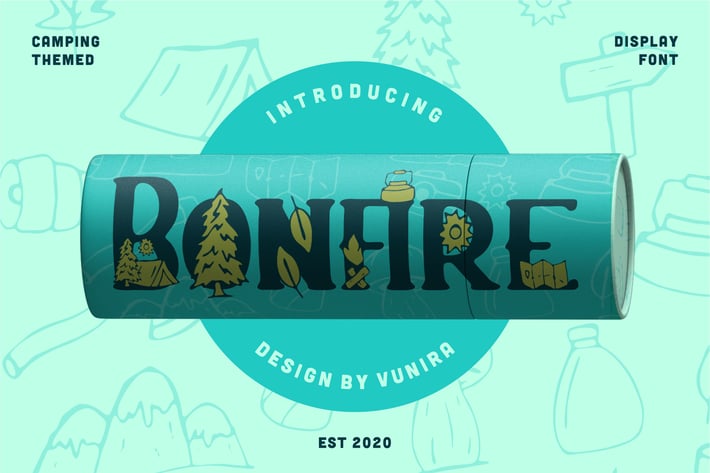
Bonfire | Display Font
Bonfire | Display Font with a calligraphy style, So beautiful on invitation like greeting cards, branding materials, business cards, quotes, posters, and more!